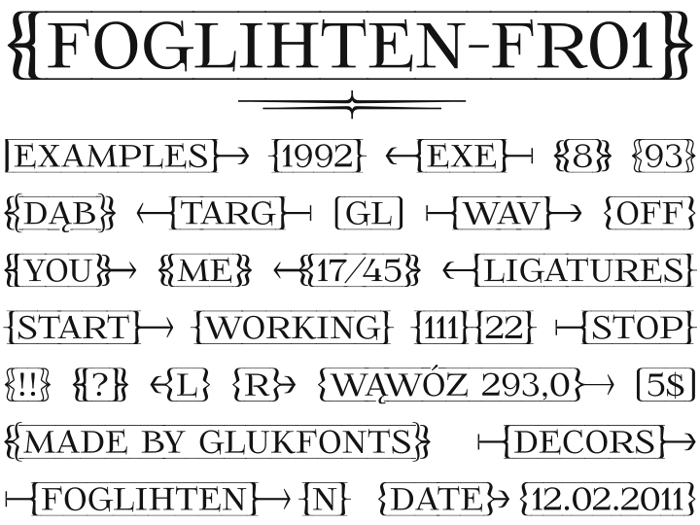
FoglihtenFr01 Font
Decorative Set of Frames and Arrows with access direct from Keyboard, based on Foglihten PetiteCaps. See Examples of use in FoglihtenFr01.pdf!
10 years agoI like the Foglihten family more and more every time I see it... a really beautiful typeface, and so many variants, too. Nice work.